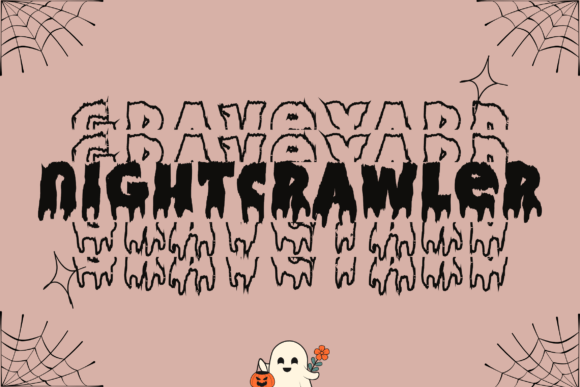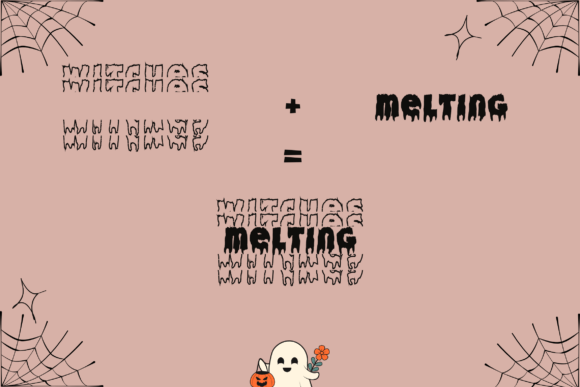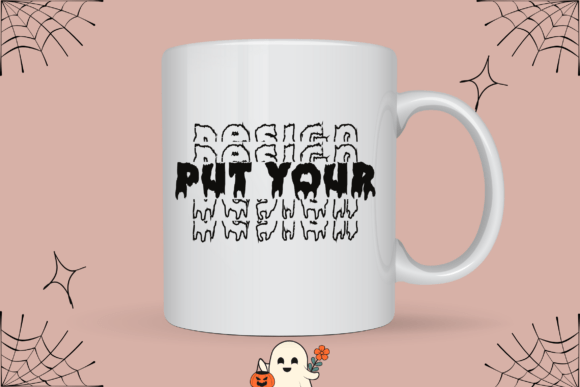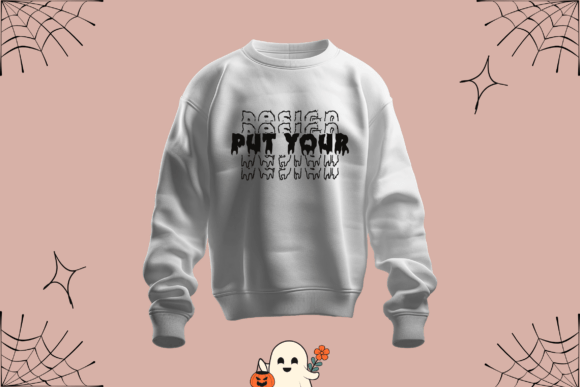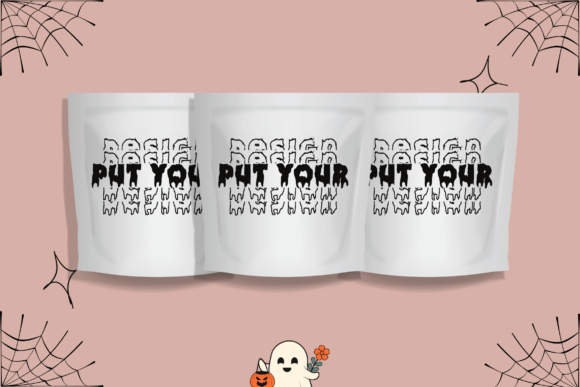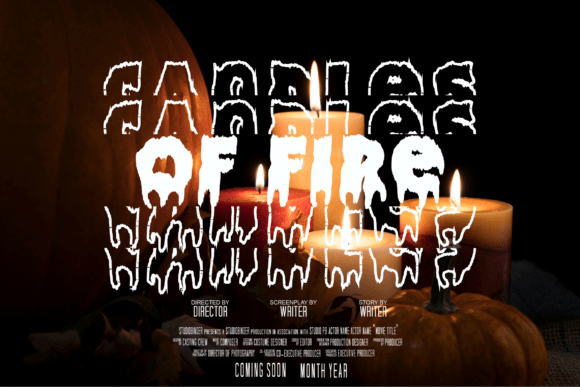
Introduction to Melted Stacked Monogram Font
As a designer, have you ever found yourself stuck in a creative rut, searching for that one perfect element to elevate your project from good to great? Perhaps you’re working on a logo for a trendy new fashion brand or a custom album cover for an indie artist. Whatever the case may be, you’re likely no stranger to the importance of a well-chosen font in bringing your vision to life. And that’s where the Melted Stacked Monogram Font comes in – a game-changing typeface that’s sure to add a touch of high-quality, urban flair to your designs.
This innovative font is a must-have for any design resource, offering a unique blend of style and versatility that’s perfect for a wide range of creative projects. Whether you’re working on a free download or a high-end commercial campaign, the Melted Stacked Monogram Font is sure to make a statement – and with its transparent background option, you can easily incorporate it into any design without worrying about distractions.
Key Features of Melted Stacked Monogram Font
- Unique Melted Stacked Monogram design for creative projects, ideal for use as a design resource.
- Transparent background allows for seamless integration into any design, providing a clean and professional look.
- Perfect for designers and artists looking for a distinctive and creative element to enhance their designs.
Honest Review: Melted Stacked Monogram Font
I recently stumbled upon the Melted Stacked Monogram Font, and I must say it’s a fantastic design resource for any creative project. With its high quality and unique design, it’s definitely worth checking out.
Here are some things that work well with this font:
- ✨ The transparent background allows for seamless integration into various design backgrounds.
- ✨ The stacked monogram design makes it perfect for creating custom logos and branding materials.
- ⚠️ The font might not be suitable for smaller text sizes due to its unique design.
- ⚠️ It’s not available in as many font styles as some other popular fonts.
Overall, I’m really impressed with the Melted Stacked Monogram Font. Its unique design and high quality make it an excellent choice for designers working on creative projects. If you’re looking for a free design resource that stands out from the crowd, this font is definitely worth checking out.
The Melted Stacked Monogram Font is a unique and creative design resource that can add a personal touch to your projects. This high-quality font is available for free download and can be used for various creative projects.
The Melted Stacked Monogram Font is commonly used for custom graphics, logos, invitations, and presentations. It can also be used to create custom illustrations, labels, and signs with a unique and creative touch.